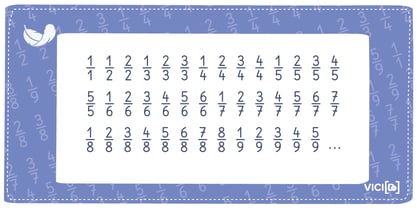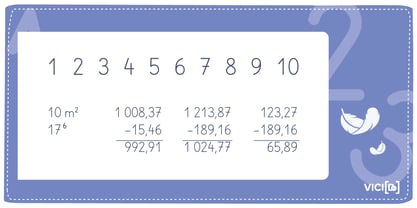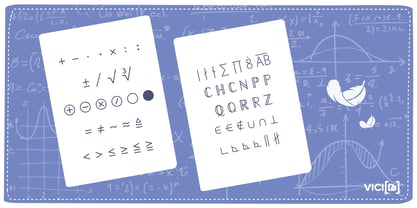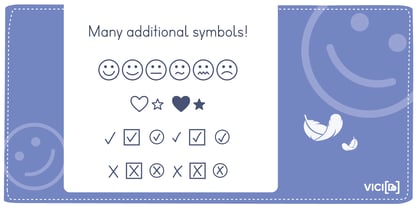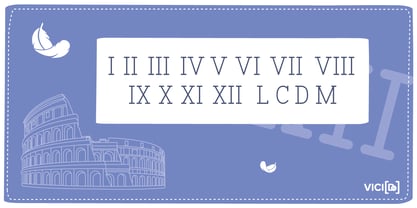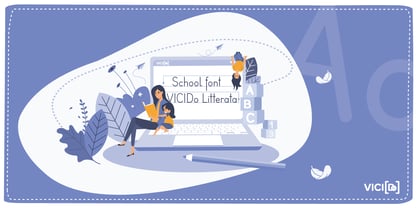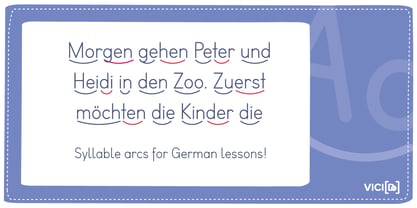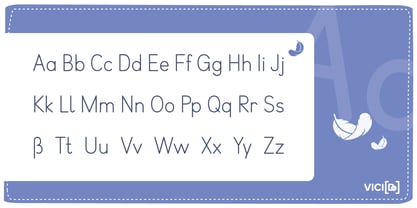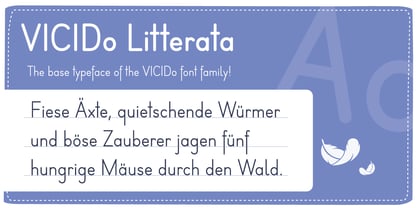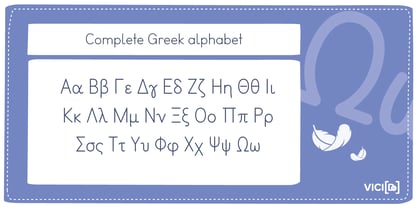
VICIDo Litterata 1
by VICIDo
The VICIDo Litterata 1 Font Family was designed by Martina Moser and published by VICIDo. VICIDo Litterata 1 contains 4 styles and family package options. More about this family
Perfect for starting school! The VICIDo Litterata print typeface for schools was developed with great attention to detail based on the handwriting model proposed by the Austrian Ministry of Education, offering a perfect balance between aesthetics and functionality. It is suitable both for use in educational contexts and for creative and professional projects. Especially in primary school, the appearance of the script is crucial for learning success. Clear, easily readable letters help children learn to write. VICIDo Litterata was specifically designed for this purpose and includes all the glyphs needed for classroom use. Standards The VICIDo Litterata typeface includes all glyphs required for classroom use, featuring a wide selection of diacritics, hyphens in different widths for minus signs or dashes, currency symbols, trademarks, and all punctuation marks. Alternatives Freely selectable alternatives for letters, umlauts, and numerals designed for classroom use in Germany and Austria. A Variety of Symbols We start with checkboxes and check marks, have included smileys for you, provide tally marks for counting lists, circles and spheres, and of course we didn’t forget hearts and stars. Teaching with the Syllable Method For teaching using the syllable method, Litterata comes equipped with countless syllable arcs. These syllable arcs can be colored and displayed independently of the text in different colors. They are also available in all four font weights. Everything for Mathematics In addition to the standard mathematical symbols and operators, we have also created multiplication and division signs in various sizes and provide continuous number series for superscripts and subscripts. Greek Alphabet and Roman Numerals All VICIDo fonts offer a complete Greek alphabet with uppercase and lowercase letters, as well as elegantly designed Roman numerals up to M. A Wide Range of Mathematical Symbols Mathematical and geometrical symbols are also included in Litterata, as well as the recurring decimal point and overlines used to mark a line segment. Fractions and Fractions with Horizontal Fraction Bars You can insert prebuilt fractions seamlessly up to 10/10 with a horizontal fraction bar via the glyph or symbol panel. If you frequently work with fractions, you can also use the keyboard option, allowing you to conveniently type fractions up to 1000/1000.
Designers: Martina Moser
Foundry: VICIDo